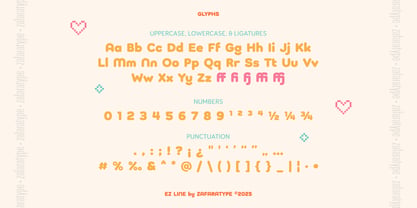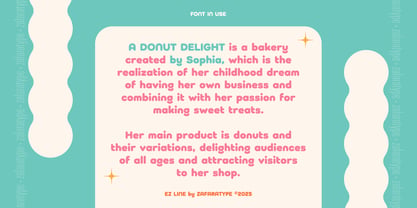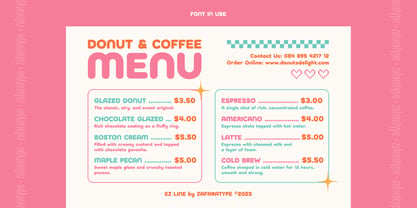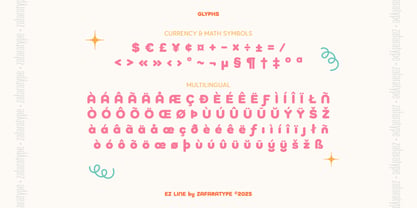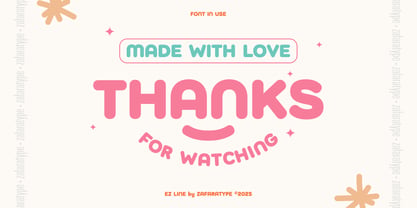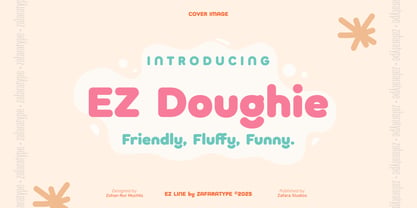
EZ Doughie
by Zafara Studios
The EZ Doughie Font Family was designed by Zohan Nur Muchlis and published by Zafara Studios. EZ Doughie contains 1 styles. More about this family
EZ Doughie is a soft and friendly rounded display font that captures the fun, bubbly spirit of modern playful design. With its chubby curves and smooth dough-like shapes, EZ Doughie brings a warm and cheerful personality to any project. Perfect for logos, packaging, posters, branding, children’s products, social media graphics, and anything that needs a bold yet friendly touch. Wherever you want to add charm, sweetness, and a happy display vibe, EZ Doughie fits perfectly. The details: 248 glyphs: Uppercase, lowercase, & ligatures, Numbers & punctuation, Symbols & accents, Multilingual support 25 languages: Afrikaans, Albanian, Basque, Catalan, Danish, Dutch, English, Estonian, Faroese, Filipino, Finnish, French, Galician, German, Icelandic, Indonesian, Irish, Italian, Malay, Norwegian Bokmål, Portuguese, Spanish, Swahili, Swedish, Zulu
Designers: Zohan Nur Muchlis
Foundry: Zafara Studios